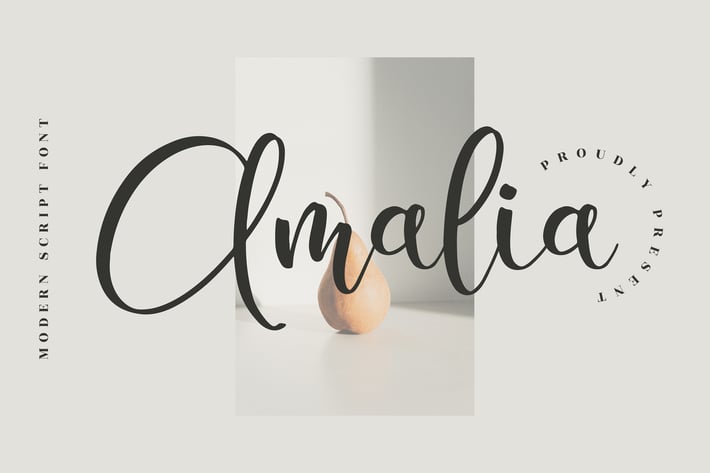
Amalia Modern Script Font
Amalia Modern Script Font is a stylish and versatile typeface with a flowing handwritten touch. Designed to bring elegance and warmth, this font is perfect for both digital and print use, giving your projects a modern yet timeless appeal.
+ Elegant modern script style with smooth curves
+ Includes Regular & Italic styles
+ Branding & logo design
+ Wedding invitations & stationery
+ Social media graphics
+ Posters & promotional designs
+ Personal or lifestyle projects
Bring a touch of modern sophistication to your designs with Amalia – where handwritten charm meets contemporary elegance.